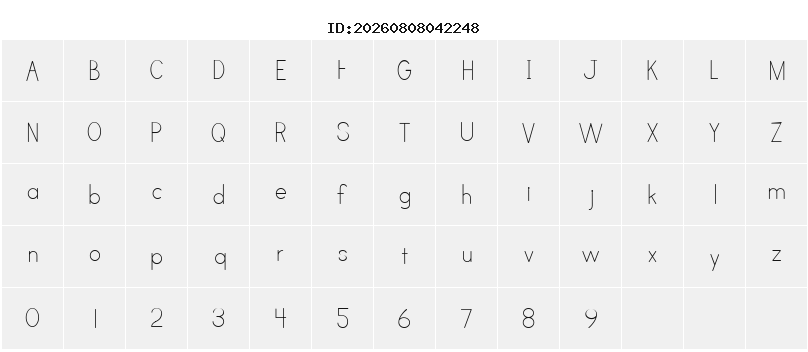
Print Clearly .ttf
About Print Clearly .ttf
Print Clearly .ttf is a modern, elegant sans-serif font designed for ultimate readability and visual harmony. Perfect for branding, headlines, web design, and print materials.